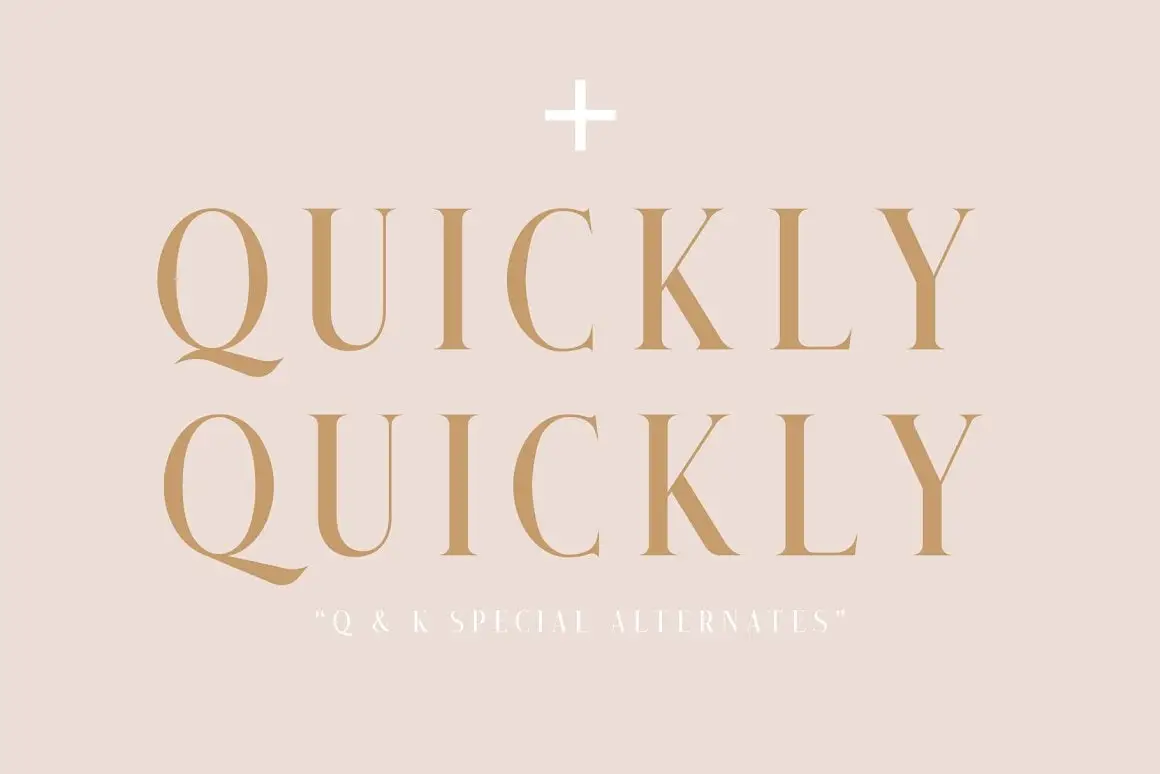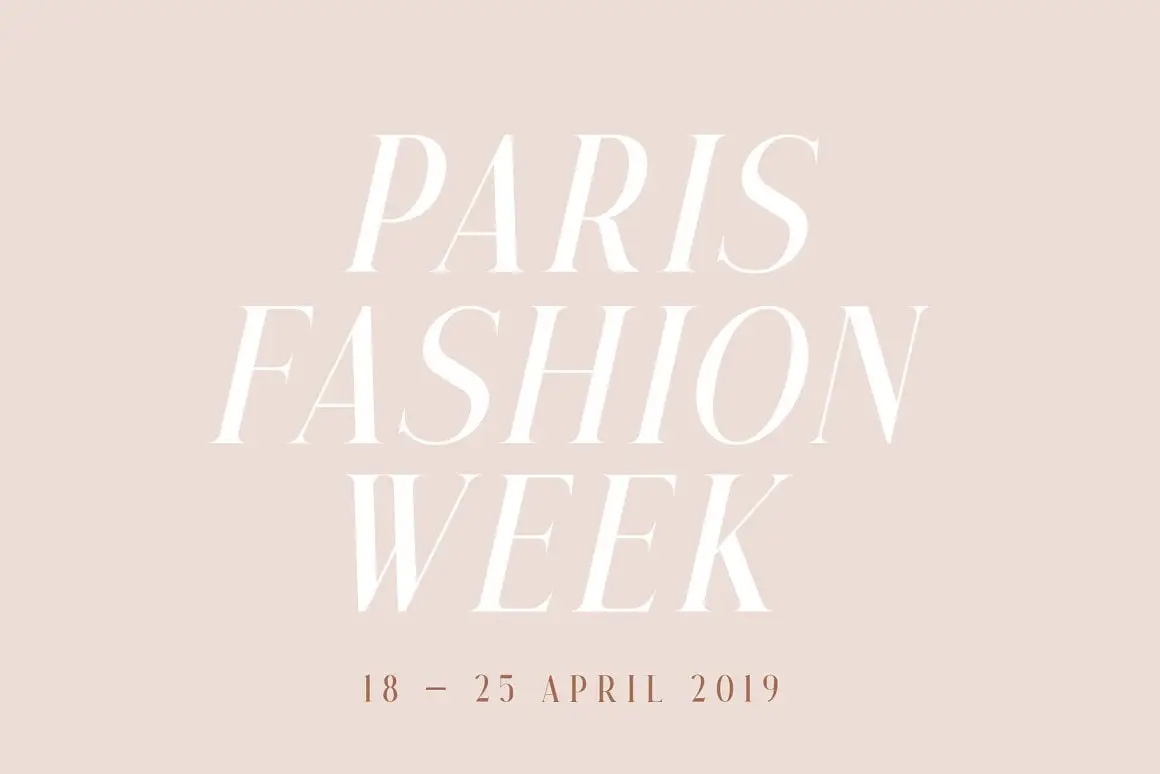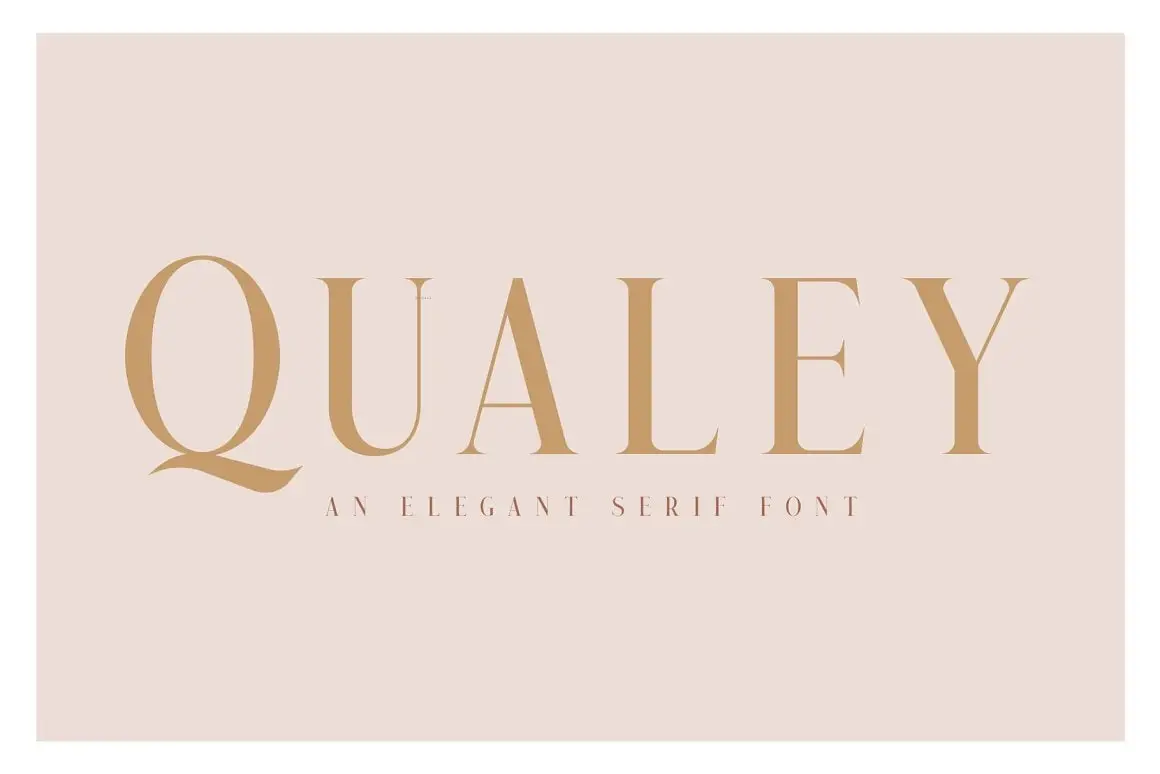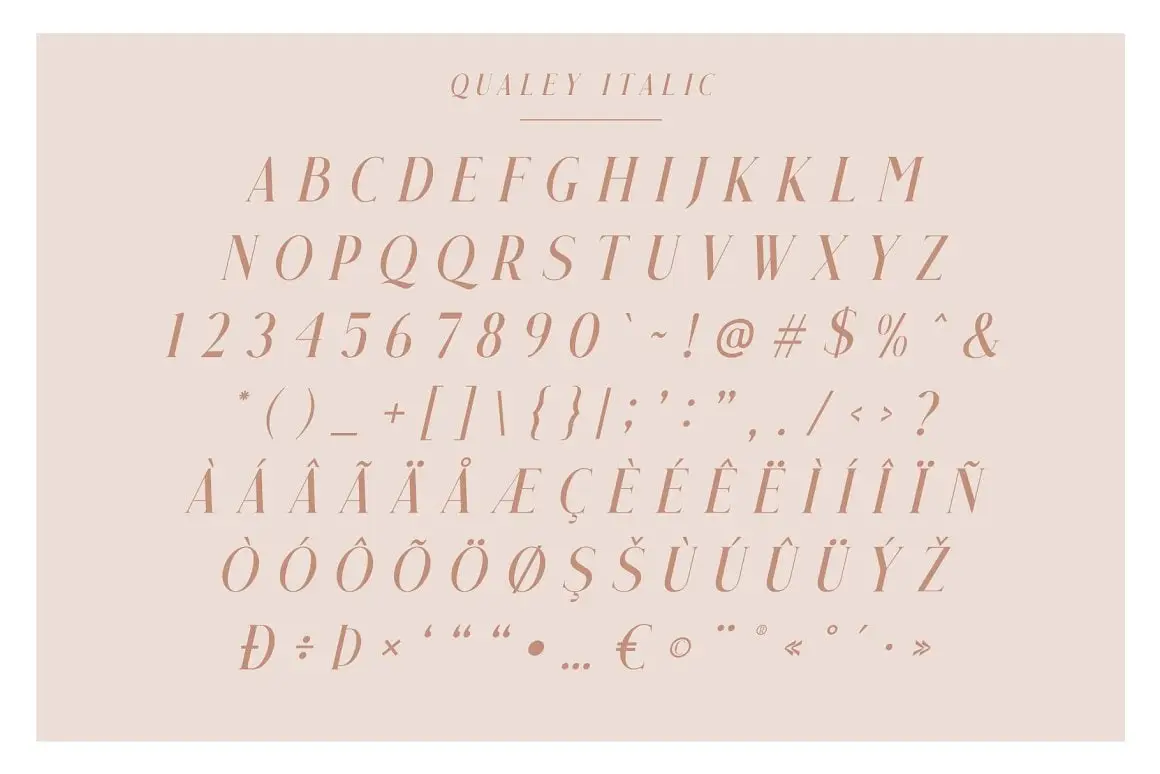
Qualey-Elegant Serif Font (C) Craft Supply Co
Introducing the Qualey-Elegant Serif Font, a beautifully crafted typeface designed by Craft Supply Co. This font combines classic elegance with modern versatility, making it perfect for a wide range of design projects.
• Stylish serif design that adds sophistication to your text.
• Multiple weights available for diverse applications.
• Supports a wide range of languages and special characters.
• Ideal for branding, logos, and print materials.
• Perfect for use in web design and user interfaces.
• Great for invitations, greeting cards, and other stationery items.